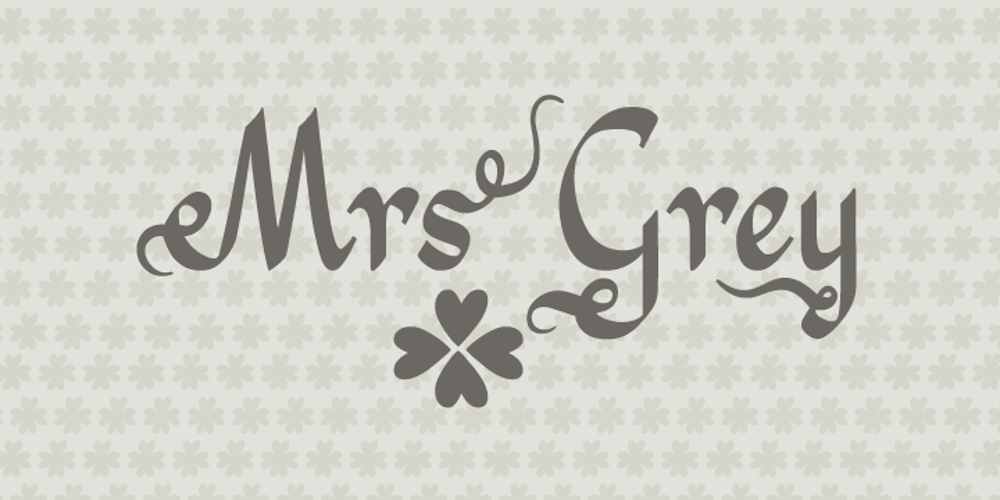
Mrs Grey Font Family was designed by Aleksandra and Daniel MizieliĆscy and published by Hipopotam Studio. Mrs Grey contains 2 styles and family package options. Stylish and elegant typeface written with a wide, broad-edge nib. Over 40 standard ligatures and over 150 alternate and swash characters. Use OpenType features (Swash and Stylistic sets) to change the endings of lowercase letters or select most suitable characters from glyphs panel or character map. As an extra we added a free set of over 30 ornaments for even more design possibilities.